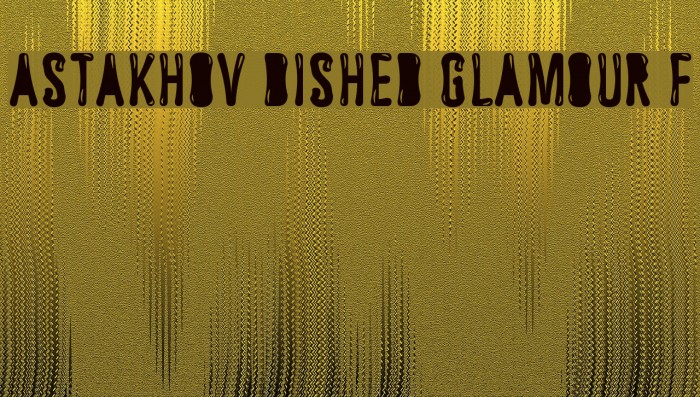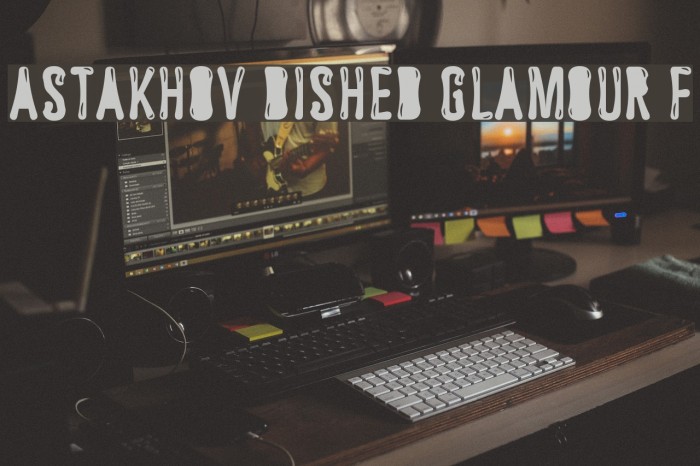
Astakhov Dished Glamour F Font
This font features a bold and playful design with a unique, liquid-like appearance. Each character appears as if it is melting or dripping, creating a dynamic and eye-catching effect. The uppercase and lowercase letters maintain a consistent style, with exaggerated curves and rounded edges that enhance the fluidity of the design. Numbers and special characters follow the same aesthetic, ensuring a cohesive look across all glyphs. The font's boldness and distinctive style make it ideal for projects that require a strong visual impact.
A bold, playful font with a liquid-like, dripping appearance.
- Proposed Projects: Ideal for posters, album covers, event flyers, and branding that requires a bold, artistic touch.